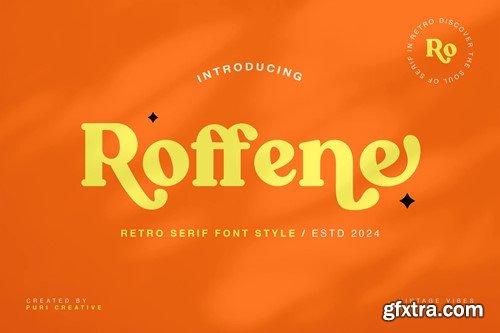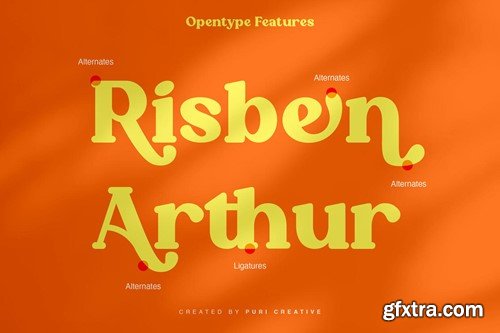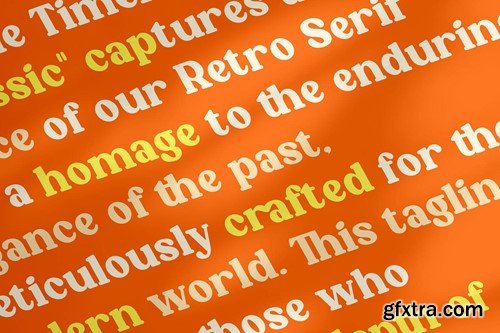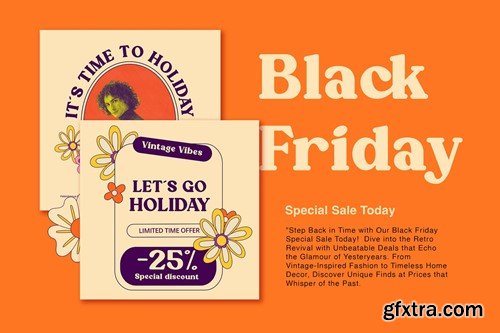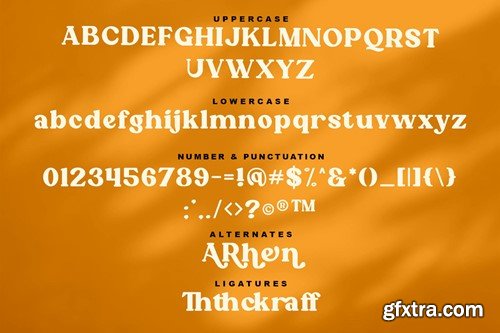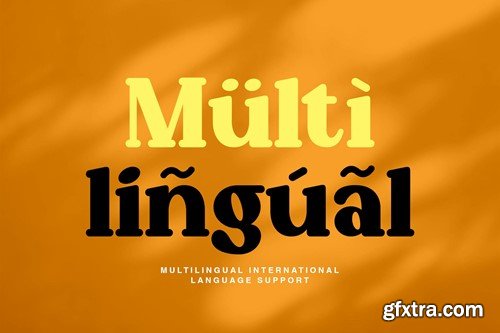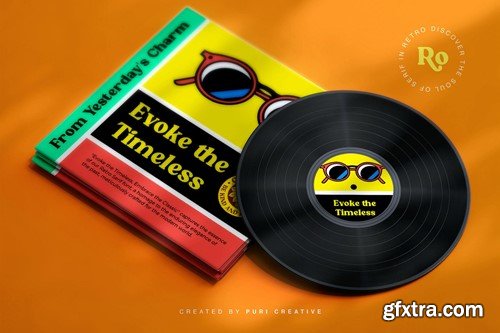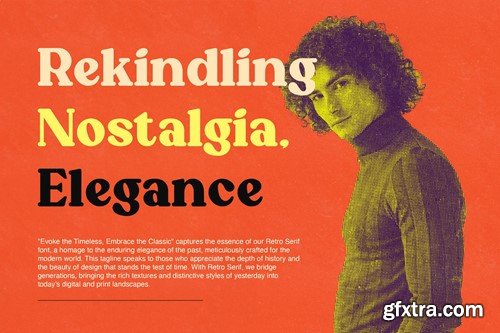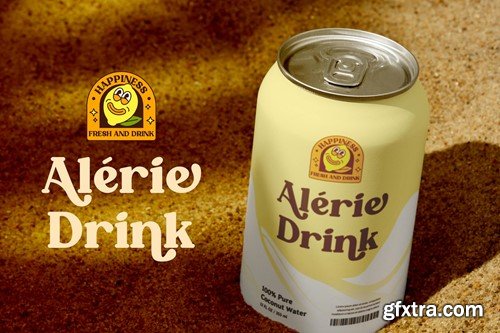
Roffene - Retro Serif Style Font
"Roffene" is a bold display font specialized for eye-catching designs. It has a cool and playful look that can be used for logos, branding, invitations, stationery, wedding designs, social media posts, and so much more. Featuring the perfect amount of trendiness, this font will make your designs come to life. This font is PUA encoded, which means you can access all of the glyphs with ease!
Features:
• Uppercase
• Lowercase
• Number and punctuation
• Alternate
• Ligature
• Multilingual Support
• 200+ Glyhps